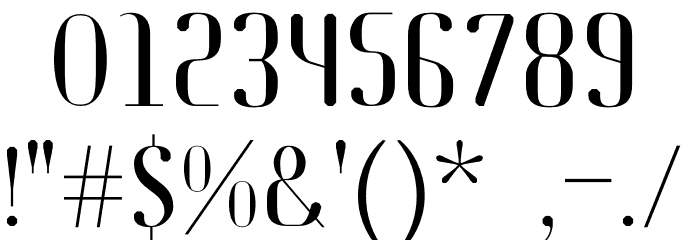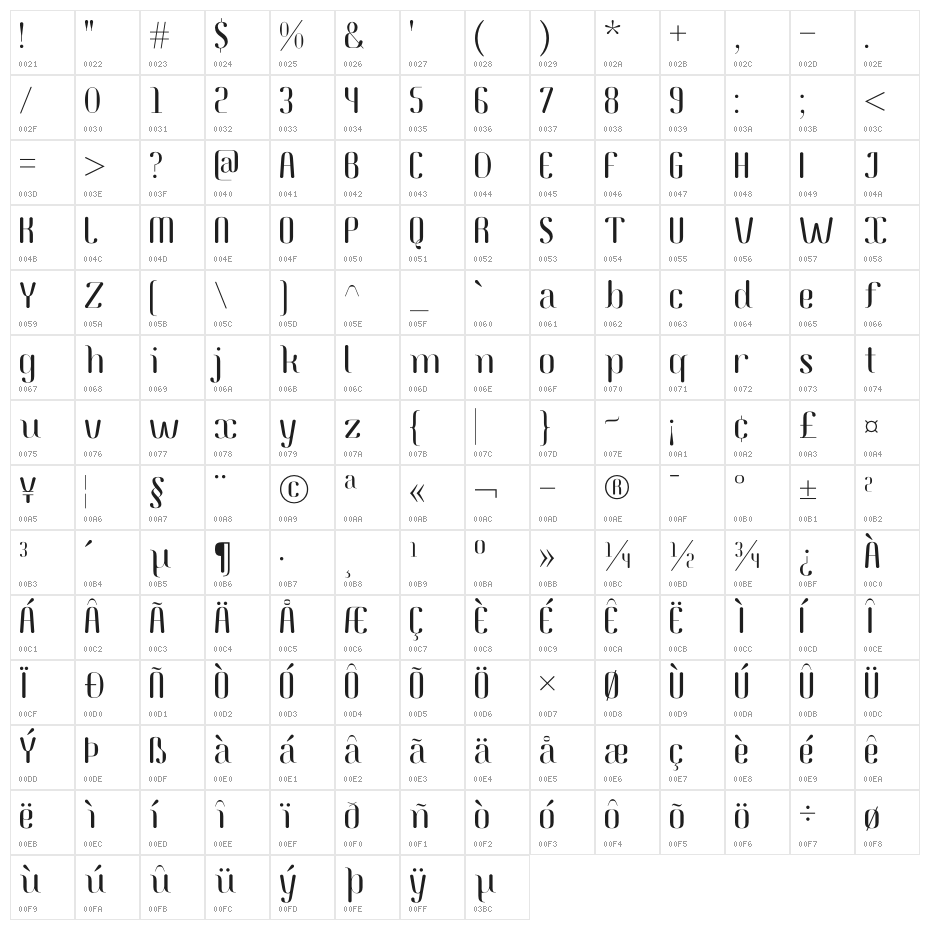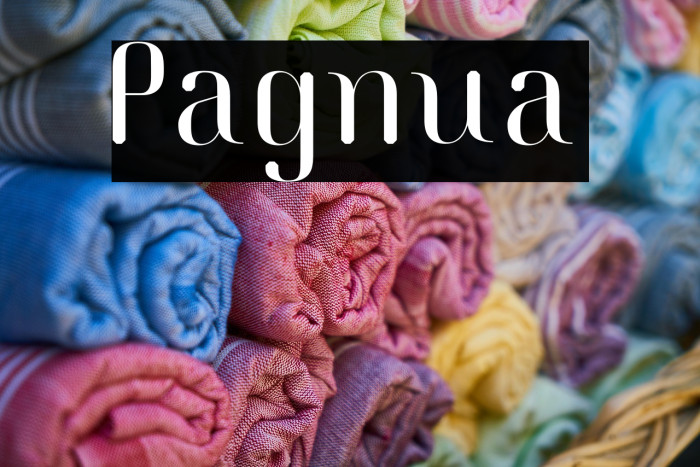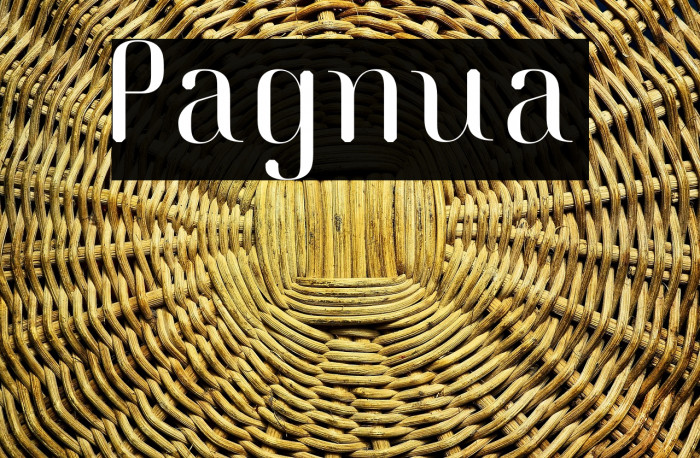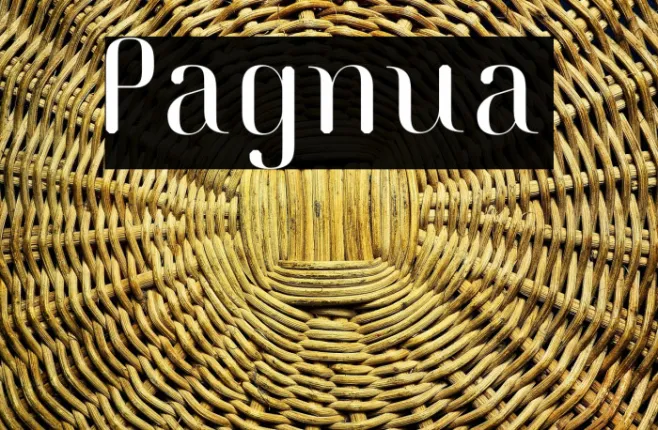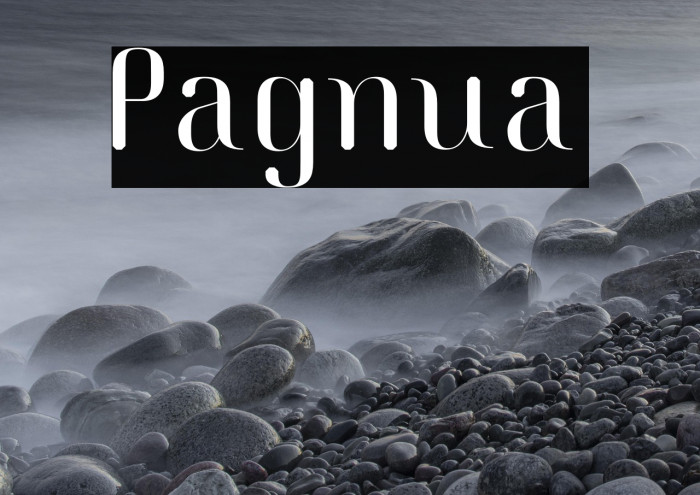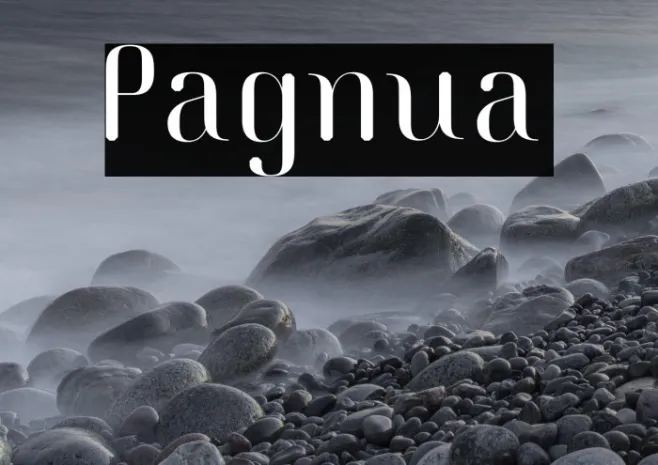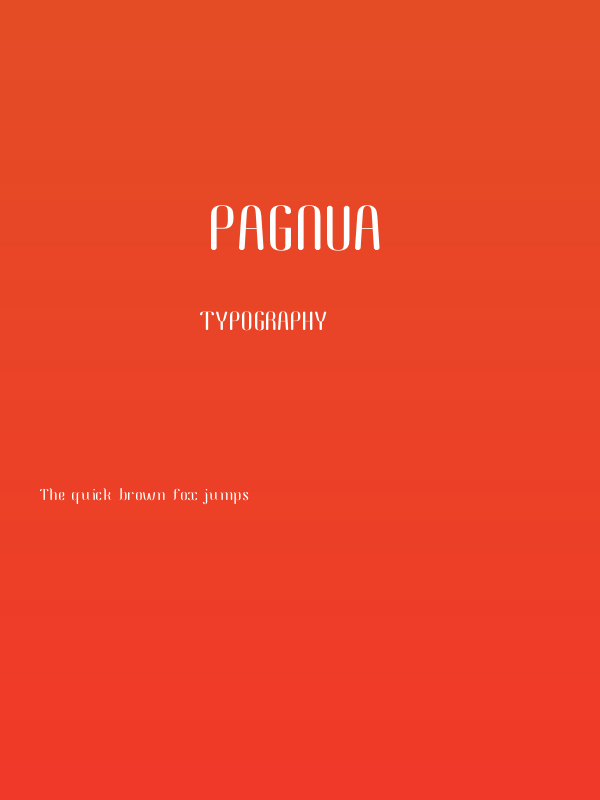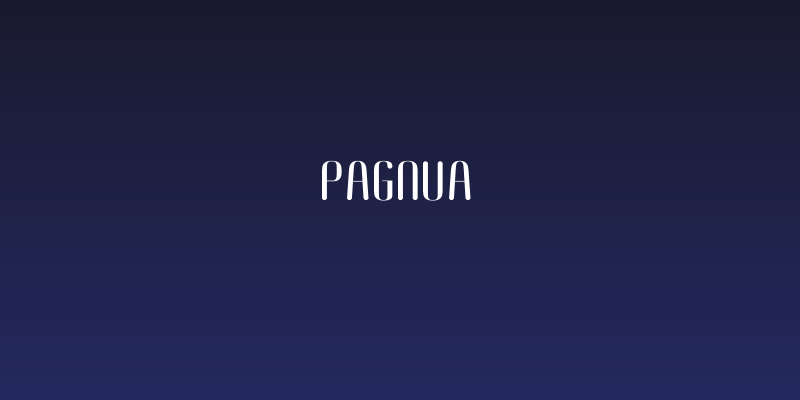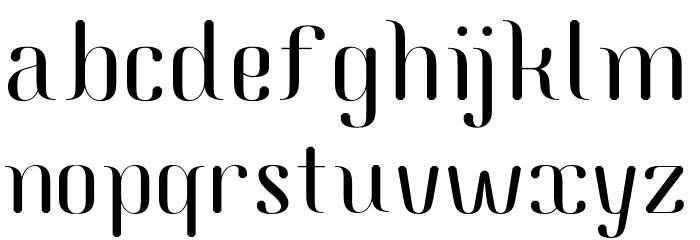
Pagnua Font
Pagnua Description
This font features a unique blend of modern and vintage styles, characterized by its elongated, narrow letterforms with rounded edges. The uppercase letters exhibit a distinct vertical emphasis, while the lowercase letters maintain a consistent flow with subtle curves. The numerals are designed with a similar aesthetic, ensuring uniformity across all characters. Special characters are crafted with attention to detail, complementing the overall design. The font's elegant and stylish appearance makes it suitable for a variety of creative applications.
| Overall Style | Modern, Vintage |
| Use Case | Logos, Headlines, Branding |
| Proposed Projects | Ideal for branding, packaging, editorial design, and creative advertising. |